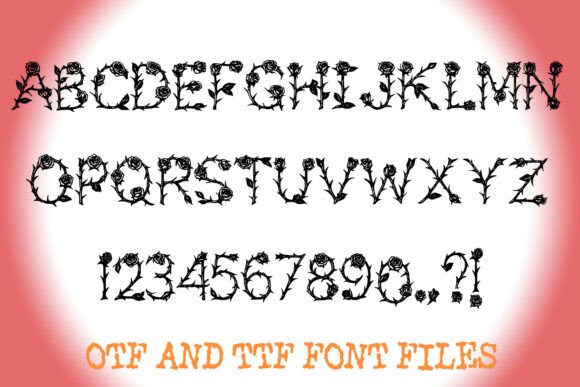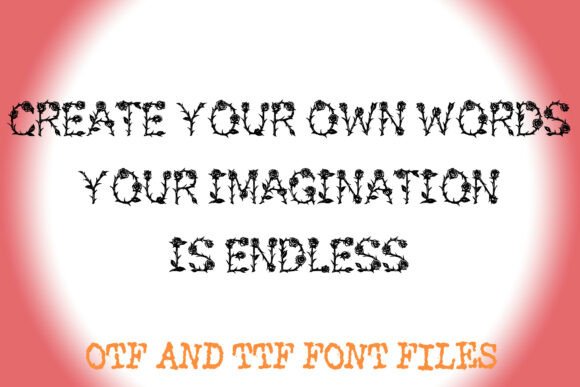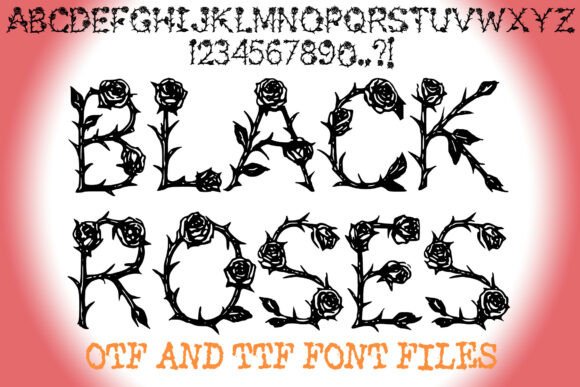
Unveiling the Beauty of Black Roses Font: A Gothic-Romantic Masterpiece
In the realm of typography, few fonts capture the essence of gothic romance and edgy botanical charm as exquisitely as the Black Roses Font. This strikingly intricate floral decorative display typeface is a masterpiece constructed entirely of thorny vines and blooming rose motifs, making it a perfect addition to any designer’s arsenal. Each character in the Black Roses Font is meticulously hand-illustrated, embodying the perfect blend of gothic elegance and botanical whimsy.
The Aesthetic Appeal of Black Roses Font
The uppercase characters of the Black Roses Font stand tall and proud, much like wild, blooming sculptures that command attention and evoke a sense of drama. This font is specifically designed to make a statement, making it perfect for creative and expressive headlines that demand a touch of gothic romance and botanical flair. Whether you’re working on tattoo concepts, dark fantasy covers, alternative branding, gothic event posters, or artisanal packaging, the Black Roses Font is an excellent choice.
Design Features and Versatility
One of the standout features of the Black Roses Font is its dramatic visuals, which are best showcased in large display settings where the detailed floral design can be fully appreciated. The font’s intricate details and hand-illustrated characters ensure that each letter is a work of art in itself. The Black Roses Font comes in both OTF and TTF formats, offering both aesthetic depth and practical versatility. This compatibility ensures that designers can seamlessly integrate the font into their projects, regardless of their software or platform of choice.
Ideal Applications for Black Roses Font
The Black Roses Font’s unique blend of gothic and botanical elements makes it incredibly versatile, suitable for a wide range of applications. Here are some of the ideal uses for this stunning font:
- Tattoo Concepts: The intricate and detailed nature of the Black Roses Font makes it perfect for tattoo artists and designers looking to create custom tattoo designs that are both meaningful and visually striking.
- Dark Fantasy Covers: For authors and publishers in the dark fantasy genre, this font offers a captivating way to create eye-catching book covers that promise a journey into the mysterious and unknown.
- Alternative Branding: Brands looking to stand out with a bold and unconventional image will find the Black Roses Font to be an excellent choice for their logos and marketing materials.
- Gothic Event Posters: Whether it’s a gothic wedding, a Halloween party, or any event that calls for a touch of the macabre and mysterious, the Black Roses Font can help create invitations and posters that set the tone for an unforgettable experience.
- Artisanal Packaging: For small businesses and artisans, especially those specializing in handmade or unique products, the Black Roses Font can add a touch of elegance and whimsy to product packaging, making it more memorable and impactful.
The Black Roses Font is more than just a typeface; it’s a statement piece, a work of art that brings a touch of gothic romance and botanical charm to any project. Its intricate design, versatility, and compatibility with various software make it an invaluable resource for designers and crafters alike. Whether you’re looking to create something that stands out in the world of tattoos, literature, branding, events, or packaging, the Black Roses Font offers a unique and captivating aesthetic that’s sure to leave a lasting impression.
Incorporating the Black Roses Font into your designs not only elevates the visual appeal of your work but also offers a way to connect with an audience that appreciates the beauty in the intricate and the unconventional. As a designer or crafter, having access to such a distinctive and high-quality font can inspire new creativity and help bring your most ambitious projects to life.